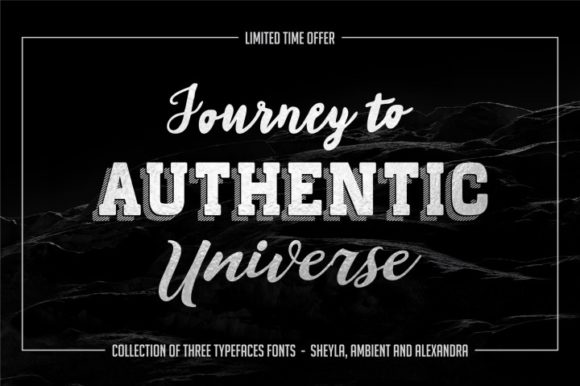
Introducing the Authentic Trio Font: Your Ticket to Captivating Designs
Step into the realm of elegant typography with the Authentic Trio Font, a stunning display family crafted by the masterful bywahtung. This enchanting trio offers a symphony of styles, empowering you to craft designs that resonate deeply with your audience.
With three distinct fonts at your fingertips, you'll have limitless opportunities to express your creativity. Whether you're crafting logos, branding, or eye-catching headlines, the Authentic Trio Font will lend an air of sophistication and allure to every project.
Indulge in the charm of the Authentic Serif Font, where classic meets contemporary. Its graceful curves and timeless appeal will add an instant touch of refinement to your designs.
For a touch of playful elegance, embrace the Authentic Sans Font. Its clean lines and modern aesthetic will effortlessly elevate your creations, making them stand out from the crowd.
And when you want to make a statement that whispers luxury and sophistication, turn to the Authentic Script Font. Its flowing strokes and romantic flair will captivate your audience, leaving them spellbound by the beauty of your words.